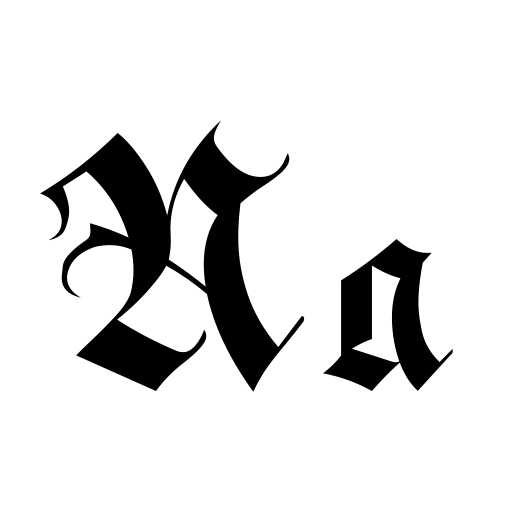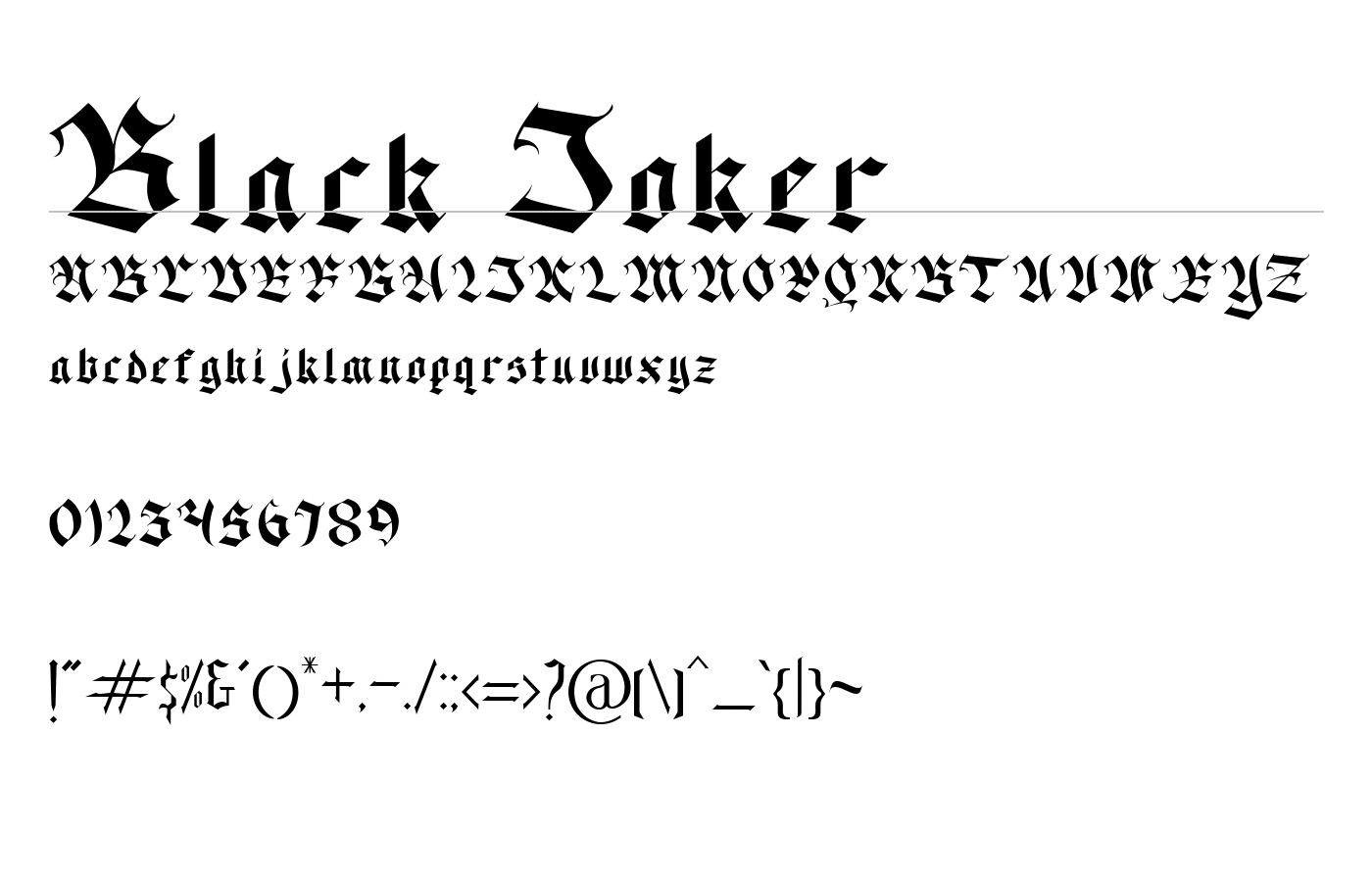
Black Joker is a bold blackletter serif font with sharp, angular strokes and intricate detailing that capture a gothic, vintage feel. Its strong contrast and unique letterforms make it ideal for dramatic headlines, logos, or branding that seeks a powerful, old-world elegance with a modern twist. This font works best in display settings where its ornate style can stand out and add character.
Black Joker Font
About Black Joker Font
| Font family | Black Joker Font |